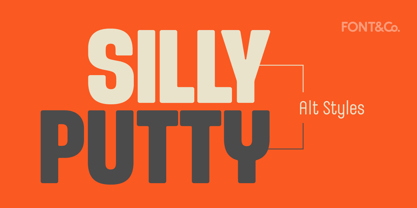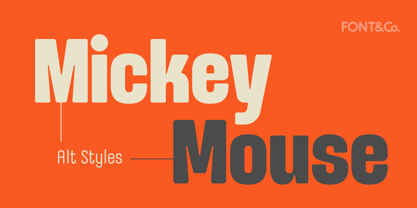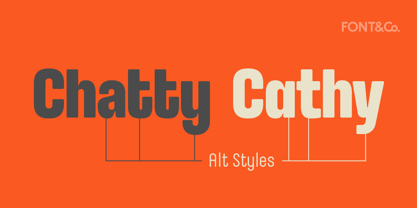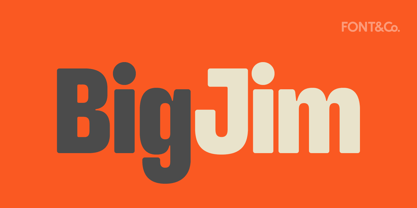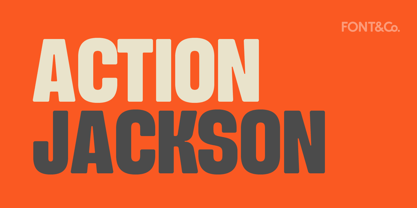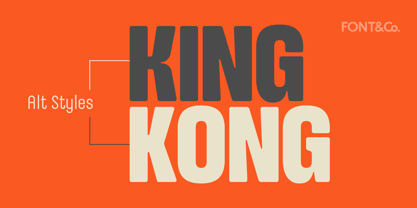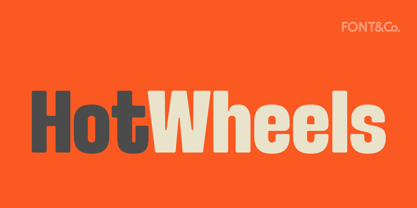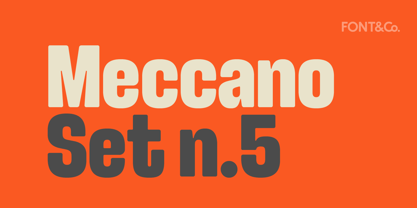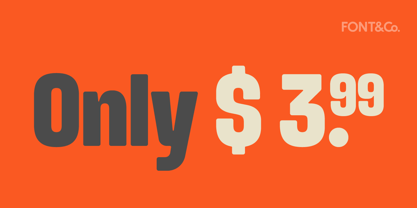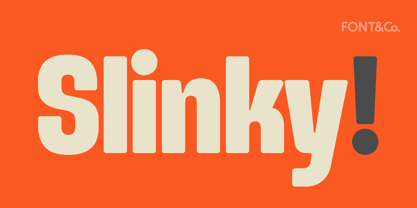
Slinky
The Slinky Font Family was designed by Francesco Gianesini and published by Font&Co.. Slinky contains 1 styles. More about this family
Slinky bounces off the page with soft curves and chunky letterforms that radiate friendliness. Originally designed for a holiday toy-drive poster, it quickly found its way into other applications like retro logos, bright headlines, and eye-catching ads. Although its inspiration is rooted in ’70s loose aesthetics, Slinky is carefully crafted for today’s needs, making it an easy companion to pair with other typefaces. Comes with stylistic alternates and extensive language support.